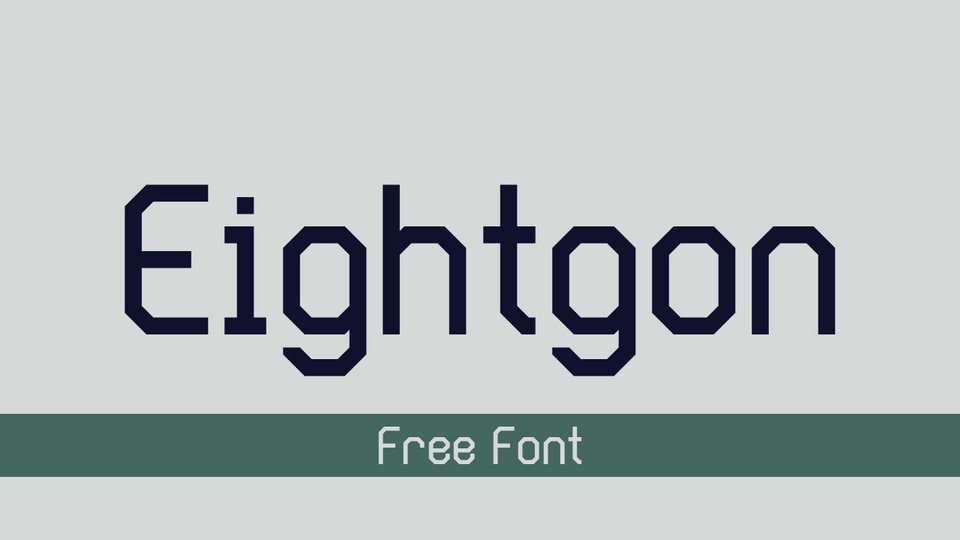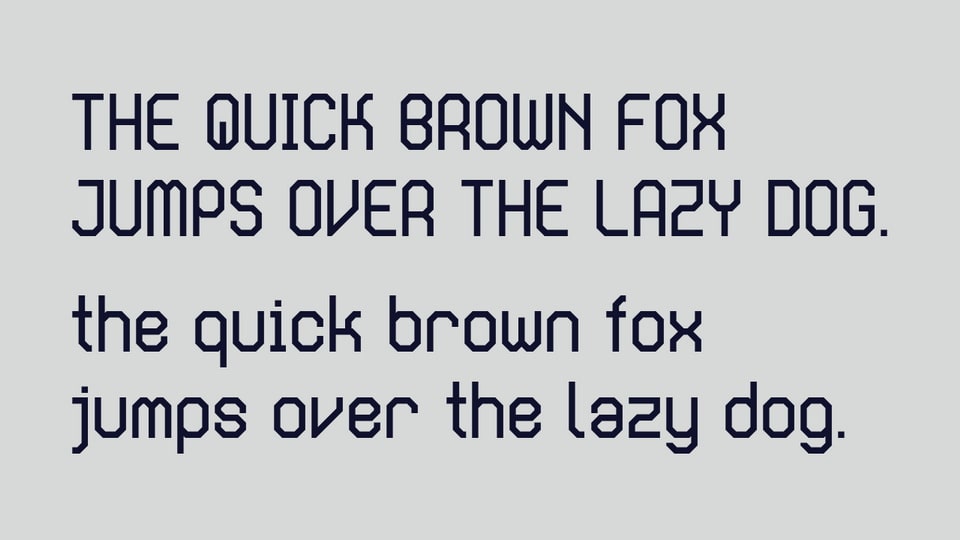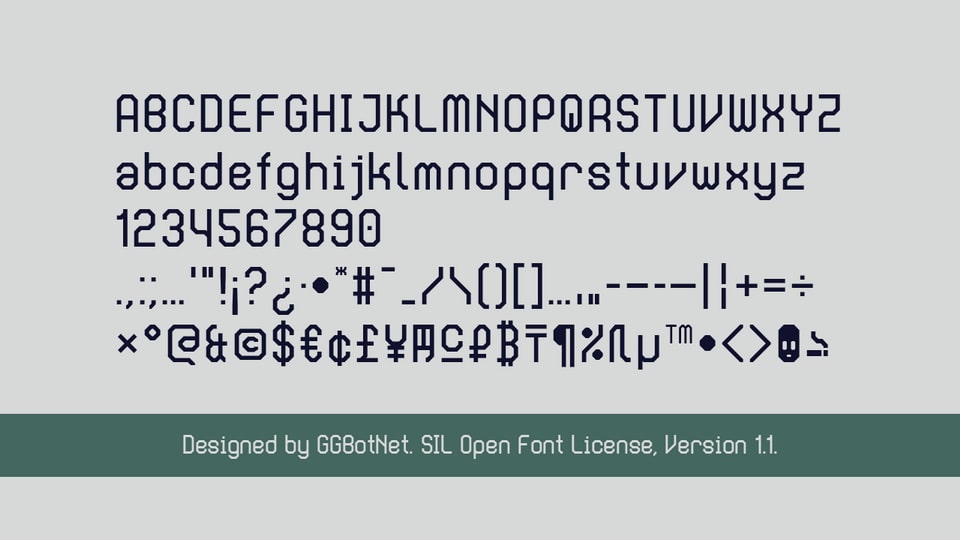
Eighton
Eightgon is a geometric sans serif with an octagonal, digital structure and low contrast strokes. Its uppercase letters use narrow vertical stems, chamfered corners, and angular counters, giving the alphabet a technical rhythm without heavy ornament. The lowercase keeps the same constructed style but reads more softly through rounded proportions and open spacing. The regular style is upright, while the italic adds a modest forward slant. Its clear shapes suit short text, headings, interface-style graphics, game titles, coding-inspired visuals, technology themes, and display settings where a mechanical but readable tone is needed.